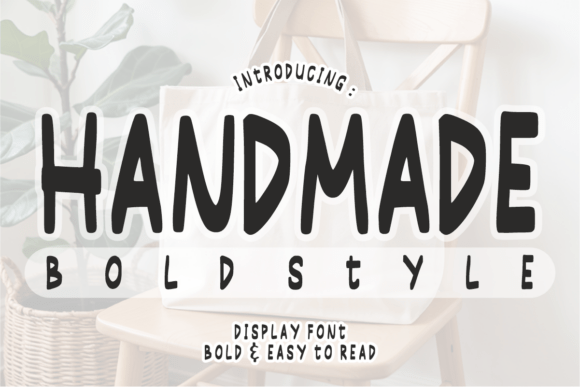
The Art of Handmade Design: Bringing Personality to Your Creations
Remember the thrill of discovering that perfect font for your project? You know, the one that captures the essence of your idea and takes it to the next level? For me, that moment came when I stumbled upon the Handmade Font – a beautiful blend of artistry and playfulness that instantly elevates any design.
With its bold, hand-drawn texture and tall characters, the Handmade Font is designed to make a statement without sacrificing legibility. Whether you’re crafting trendy tote bags, vibrant classroom posters, or adorable kids’ apparel, this font is the perfect choice for projects that need to be both eye-catching and approachable.
As a designer, you know how valuable a versatile font like Handmade can be. It’s the perfect addition to your toolkit, allowing you to bring your creative vision to life with ease and style.
Key Features of Handmade Font
- Unique Hand-Drawn Design: The Handmade Font features a distinctive hand-drawn aesthetic, with each character carefully crafted to evoke a sense of personal touch.
Designer Review: Handmade Font
As a designer, I’ve had the chance to work with the Handmade Font, and I have to say it’s been an interesting experience. Here are some of my thoughts on what works well and what doesn’t.
- The Handmade Font has a unique, hand-crafted feel that can add a touch of personality to any design project.
- The font is highly customizable, allowing me to adjust the spacing, line height, and other settings to fit my specific needs.
- The font supports a wide range of languages, making it a great choice for projects that require multilingual support.
- The Handmade Font can be quite unpredictable, with some characters displaying slightly differently than others.
- The font is not optimized for small text sizes, which can make it difficult to read at smaller sizes.
- The font is not compatible with all operating systems, which can limit its use in certain contexts.
Overall, I think the Handmade Font is a great choice for projects where a unique, hand-crafted feel is desired. However, it may not be the best choice for projects that require precision or consistency. With some careful planning and customization, I think the Handmade Font can be a valuable addition to any designer’s toolkit.
Handmade Font is perfect for creating a vintage or distressed look in your designs. Use it for:
1. Invitations and greeting cards.
2. Social media graphics and ads.
3. Wedding and event stationery.
4. Quirky and playful branding.
Remember to experiment with different font sizes, colors, and styles to get the most out of Handmade Font.
Alternative Handmade Fonts for Designers
Great Vibes is a modern script font that mimics the feel of handwritten text. It’s ideal for use in titles, headings, and short paragraphs where a personal touch is desired. Great Vibes is more elegant and refined compared to Handmade Font, making it suitable for luxury brands and high-end designs.
Carolyna Pro is a stylish script font that’s perfect for creating a sense of sophistication and elegance. It’s ideal for use in fashion, beauty, and lifestyle branding. Compared to Handmade Font, Carolyna Pro is more polished and refined, making it suitable for high-end designs that require a level of sophistication.